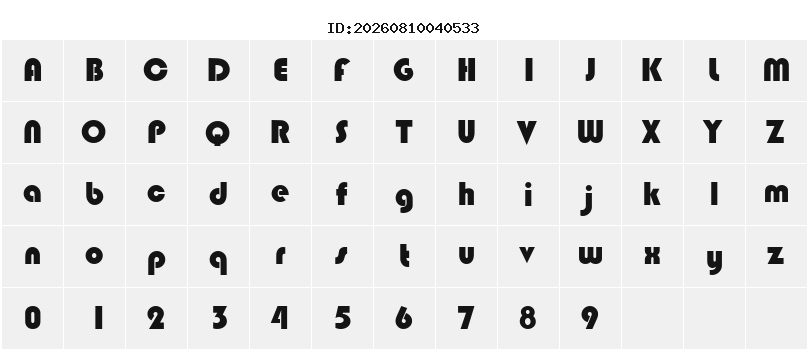
PT Bandstand Preview
• Font Name: PT Bandstand
• Full Font Name: PT Bandstand
About PT Bandstand.ttf
PT Bandstand.ttf is a modern, elegant sans-serif font designed for ultimate readability and visual harmony. Perfect for branding, headlines, web design, and print materials.